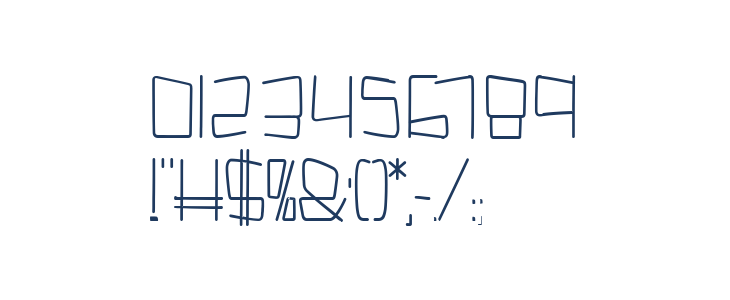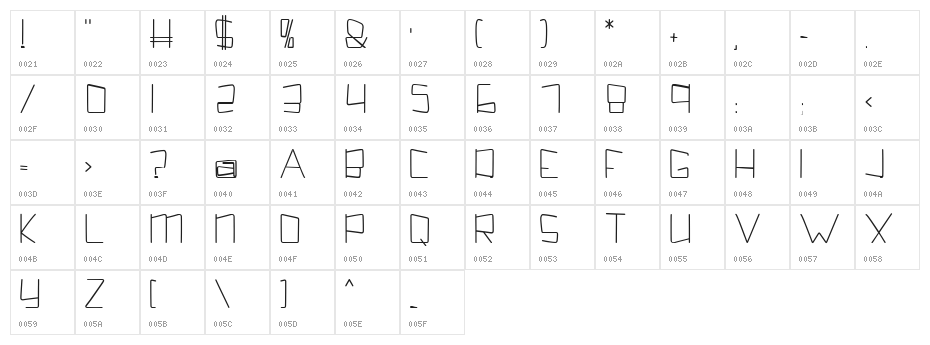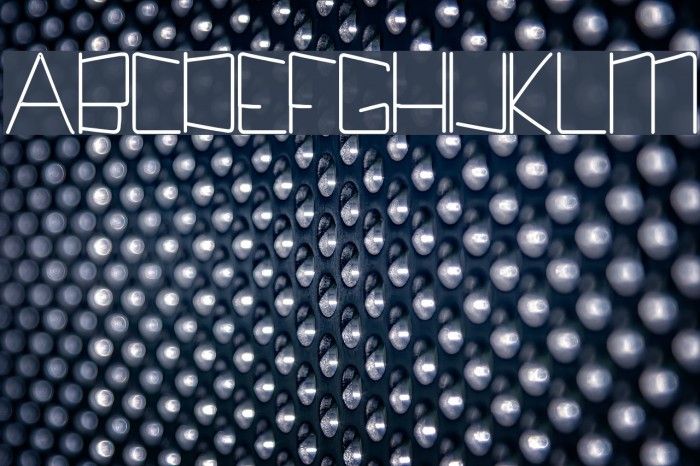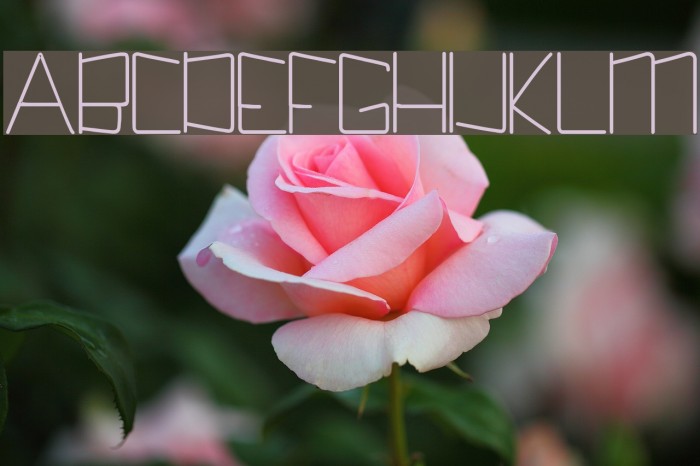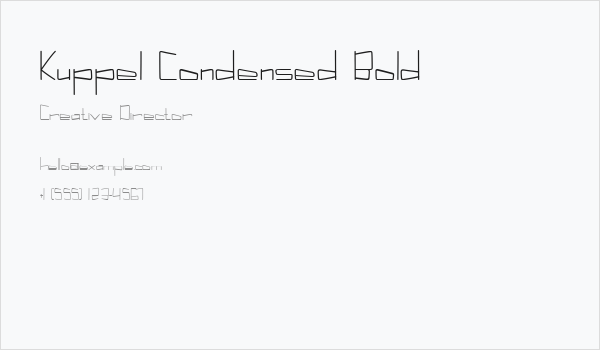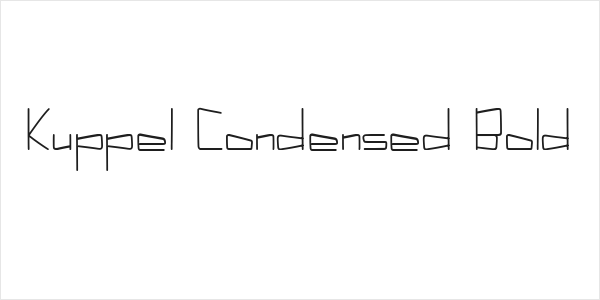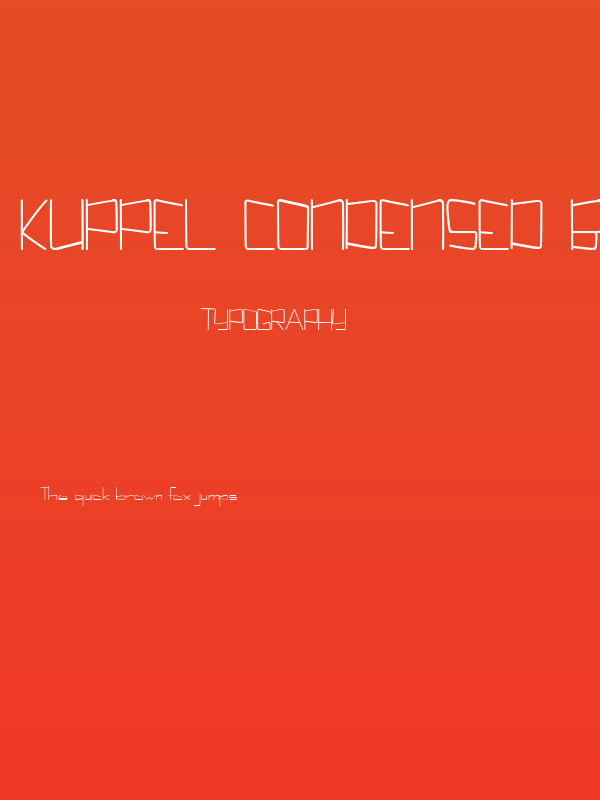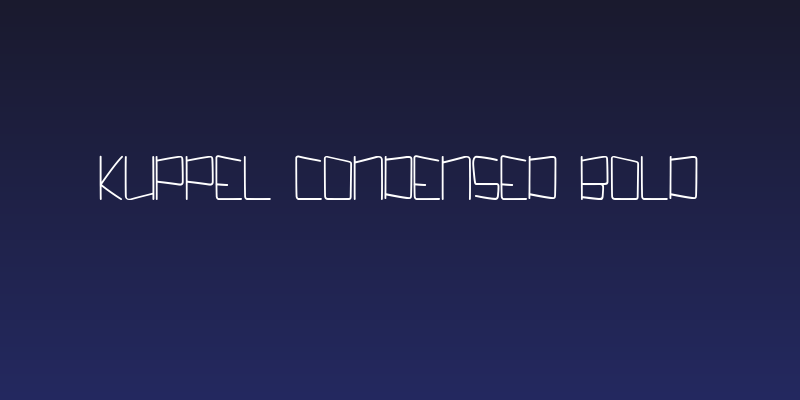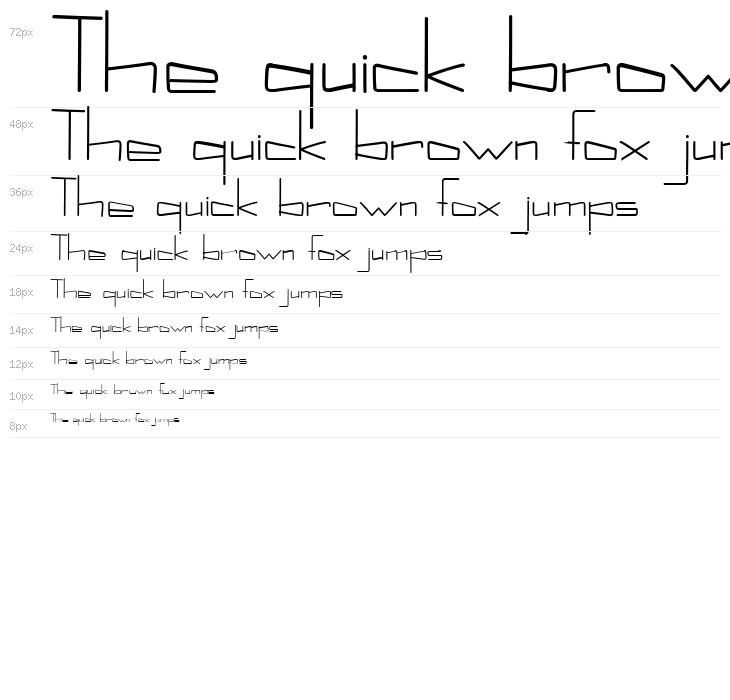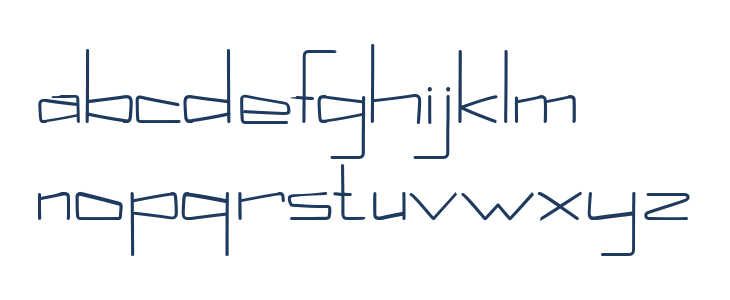
Kuppel Condensed Bold Font
Kuppel Condensed Bold Description
This font features a geometric and modern design with a condensed structure. The characters are constructed with clean, straight lines and sharp angles, giving it a futuristic and technical appearance. The uppercase and lowercase letters maintain a consistent height, contributing to its uniform look. The numerals and special characters follow the same design principles, ensuring a cohesive style throughout. The font's minimalistic approach makes it suitable for contemporary design projects where clarity and precision are essential.
| Proposed Projects | Ideal for technology branding, modern posters, and minimalist graphic design projects. |